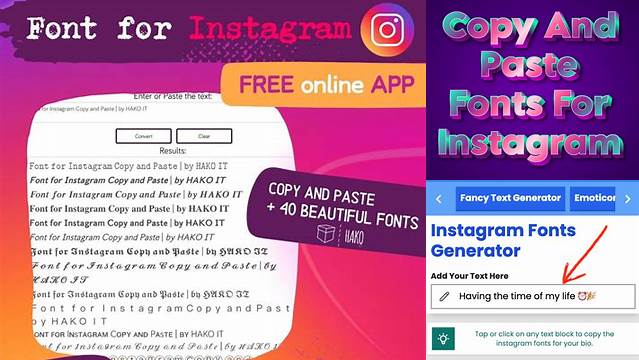
Cool Instagram Fonts For Girls: Copy & Paste!
Hey guys! Want to make your Instagram posts pop? One of the easiest ways to do that is by using unique and stylish fonts. But let's be real, Instagram's built-in font options are... well, a little basic. That's where the magic of copy and paste fonts comes in! This article is your ultimate guide to finding, using, and rocking the coolest fonts for your Instagram, especially if you're looking for something extra girly and fun. Let's dive in!
Why Use Different Fonts on Instagram?
Using different fonts on Instagram is a fantastic way to express your personality and make your content stand out from the crowd. Think about it – everyone's scrolling through their feed, bombarded with the same old text. But if your post has a cool, eye-catching font? Boom! Instant attention. Plus, different fonts can help you create a specific mood or aesthetic. A playful, bubbly font for a fun day out, or an elegant, cursive font for a more sophisticated post – the possibilities are endless! And the best part? It's super easy to do with copy and paste fonts. You don't need any fancy design skills, just a little bit of creativity and this guide, and you'll be crafting Instagram masterpieces in no time. So, if you're ready to level up your Insta game, let's get started with exploring the world of unique fonts!
How to Copy and Paste Fonts for Instagram
Okay, so how does this whole copy and paste font thing actually work? It's simpler than you might think, guys! Basically, there are tons of websites and apps out there that generate stylish fonts for you. These aren't technically fonts in the traditional sense, but rather clever combinations of Unicode characters that look like different fonts. You just type your text into the generator, choose a font you like, and then copy it. Then, you can paste it directly into your Instagram bio, captions, comments – anywhere you want! No need to download anything or mess with any complicated settings. It's a super quick and easy way to add some flair to your posts. We'll explore some of the best font generators in the sections below, but for now, just know that the process is usually as simple as typing, copying, and pasting. So easy, right? Now, let's get into some specific font styles that are perfect for girls!
Girly and Cute Fonts for Instagram
If you're going for a girly and cute vibe on your Instagram, there are tons of fonts that can help you achieve that aesthetic! Think bubbly letters, playful curves, and fonts that just feel light and fun. Some popular options include script fonts with elegant swirls, rounded sans-serif fonts that look super friendly, and even fonts with little hearts or stars incorporated into the design. These kinds of fonts are perfect for showcasing your bubbly personality, sharing fun moments with friends, or just adding a touch of sweetness to your feed. When choosing a girly font, think about the overall mood you want to create. Do you want something super playful and energetic, or something a bit more delicate and romantic? There's a perfect font out there for every girl's unique style! And the beauty of copy and paste fonts is that you can experiment with different styles until you find the perfect fit. So, go ahead and get creative! Let's explore some specific examples of girly and cute fonts that you can copy and paste right now.
Stylish Script Fonts for Instagram
Stylish script fonts are a fantastic choice for Instagram if you want to add a touch of elegance and sophistication to your posts. These fonts mimic the look of handwriting, with flowing curves and beautiful letterforms. They're perfect for quotes, captions, or even your bio if you want to create a classy and refined impression. Imagine using a gorgeous script font to write your name in your bio or to add a heartfelt message to a photo – it instantly elevates the look and feel of your profile. There are tons of different script font styles out there, from delicate and romantic scripts to bold and modern ones. Some might have extra flourishes and swirls, while others are cleaner and more minimalist. The key is to choose a script font that complements your overall aesthetic and the message you're trying to convey. Script fonts are also great for highlighting important words or phrases in your captions, drawing the reader's eye and making your text more visually appealing. So, if you're looking for a way to add a touch of sophistication to your Instagram, give script fonts a try! You might be surprised at how much of a difference they can make.
Bold and Modern Fonts for Instagram
Sometimes, you want your Instagram posts to make a statement. That's where bold and modern fonts come in! These fonts are all about grabbing attention and conveying a sense of confidence and style. Think strong, clean lines, thick letterforms, and a contemporary feel. Bold fonts are perfect for headlines, announcements, or anything you want to really stand out. Imagine using a bold font to announce a giveaway or to highlight a key message in your caption – it's sure to catch your followers' eyes. Modern fonts, on the other hand, often have a minimalist and sleek aesthetic, which is great for creating a polished and professional look. They can be used for a variety of purposes, from adding a touch of sophistication to your bio to creating visually appealing captions. When choosing a bold or modern font, consider the overall tone you want to convey. Do you want to project strength and confidence, or a more sleek and minimalist vibe? There are tons of options out there, so experiment and see what works best for your style. These fonts are excellent for creating a visually impactful Instagram presence.
Fun and Playful Fonts for Instagram
For those times when you want your Instagram to reflect your fun and playful side, these fonts are the way to go! Think bubbly letters, quirky shapes, and fonts that just make you smile. These are perfect for sharing silly moments, posting about fun adventures, or just adding a touch of lightheartedness to your feed. Imagine using a playful font to caption a photo of you laughing with your friends or to announce a fun weekend getaway – it instantly sets the tone for a happy and carefree vibe. There are tons of different styles within this category, from fonts that look like they were hand-drawn to fonts with little doodles and embellishments. Some might have a retro or vintage feel, while others are more modern and whimsical. The key is to choose a font that matches your personality and the overall mood you want to create. Fun and playful fonts are also great for adding a touch of personality to your Instagram stories, making your content even more engaging and memorable. So, if you're looking to inject some fun into your feed, give these fonts a try! They're sure to bring a smile to your followers' faces.
Calligraphy Fonts for Instagram Bios
Your Instagram bio is like your digital introduction, so why not make it stylish with a calligraphy font? Calligraphy fonts add a touch of elegance and sophistication, making your bio stand out from the sea of standard text. They can give your profile a more polished and professional look, or simply reflect your personal style and taste. Imagine using a beautiful calligraphy font to display your name, a favorite quote, or a brief description of what you do – it instantly elevates the look and feel of your bio. There are many different styles of calligraphy fonts to choose from, ranging from traditional and formal scripts to more modern and whimsical styles. Some might have delicate swirls and flourishes, while others are cleaner and more minimalist. The key is to choose a calligraphy font that complements your overall Instagram aesthetic and the message you want to convey. A well-chosen calligraphy font can make a big difference in how your bio is perceived, so take some time to explore different options and find the perfect fit. Your bio is your first impression, make it count!
Cursive Fonts for Instagram Captions
Cursive fonts are a fantastic choice for adding a personal touch to your Instagram captions. They mimic the flow and rhythm of handwriting, making your words feel more intimate and heartfelt. Imagine using a cursive font to share a special memory, express your gratitude, or simply add a touch of elegance to your captions – it can make your words feel more meaningful and connected. Cursive fonts are also great for highlighting key phrases or words, drawing the reader's eye and adding visual interest to your text. There are tons of different styles of cursive fonts to choose from, ranging from delicate and romantic scripts to bolder and more modern styles. Some might have extra swirls and flourishes, while others are cleaner and more minimalist. The key is to choose a cursive font that complements your overall Instagram aesthetic and the tone of your caption. A well-chosen cursive font can make your captions more engaging and memorable, so experiment with different styles and see what works best for you. Let your captions speak from the heart with the beauty of cursive fonts!
Unique Font Styles for Instagram Stories
Instagram Stories are all about being creative and engaging, and using unique font styles is a great way to achieve that! Ditch the standard Instagram fonts and experiment with different styles to make your stories stand out. Think about using a bold font for a title, a script font for a heartfelt message, or a playful font for a fun announcement. The possibilities are endless! You can also use different fonts to create visual hierarchy, drawing attention to the most important parts of your story. Imagine using a large, eye-catching font for a headline and a smaller, more delicate font for the body text – it instantly makes your story more visually appealing and easy to read. And don't be afraid to mix and match different font styles to create a truly unique look! The key is to have fun and let your personality shine through. Instagram Stories are a playground for creativity, so don't be afraid to experiment with different fonts and see what works best for you. Let your stories tell a visual story with the power of unique fonts!
Copy and Paste Fonts for Other Social Media Platforms
While this article has focused on Instagram, the beauty of copy and paste fonts is that they can be used on other social media platforms too! Whether you're crafting a witty tweet, sprucing up your Facebook status, or adding flair to your TikTok videos, these fonts can help you express your personality across the web. The process is the same: use a font generator, copy the text, and paste it into your desired platform. Each platform has its own nuances, so consider what looks best where. A bold font might grab attention on Twitter, while a script font could add elegance to your Pinterest boards. Just like on Instagram, think about your brand or personal style when choosing fonts for other platforms. Consistency can help people recognize your posts, no matter where they see them. So, spread the font love! Take these fun styles beyond Instagram and let your creativity shine across all your social media profiles.